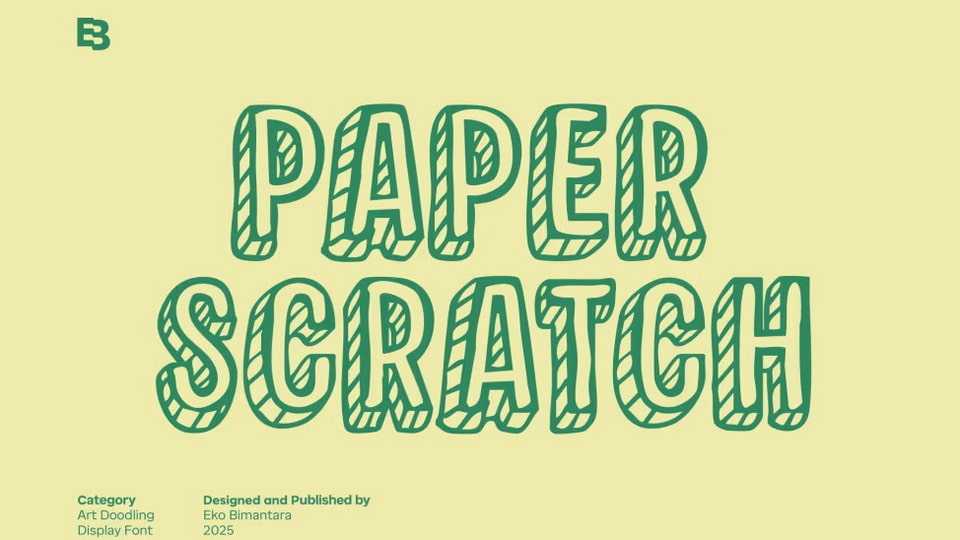
Download Paper Scratch font, a playful doodle-style display typeface that brings the joy of hand-drawn textures to the digital page with its sketchy linework and striped interior detailing.